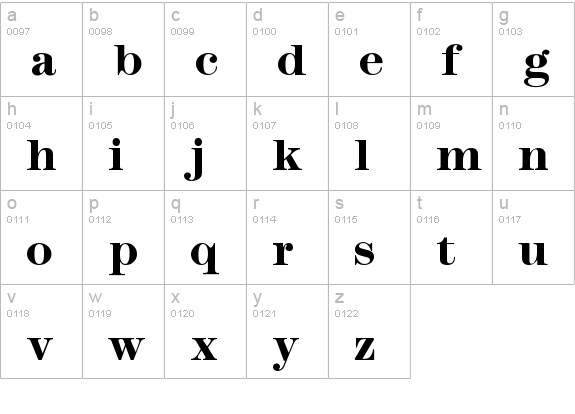
Modern Bold is a strong, high-contrast variant in the Modern typeface family \xE2\x80\x94 well suited to headlines, attention-grabbing titles, and strong calls-to-action.
The Modern Bold font is a striking and contemporary typeface that exudes confidence and sophistication. With its clean lines and bold strokes, this font is perfect for making a statement in any design project. Whether you're creating a sleek logo, eye-catching poster, or modern website, the Modern Bold font will add a touch of elegance and style. Best of all, the Modern Bold font is available for free at FontsMarket.com. Simply download it and start using it in your projects today. Don't miss out on this fantastic opportunity to enhance your designs with this versatile and impactful font.